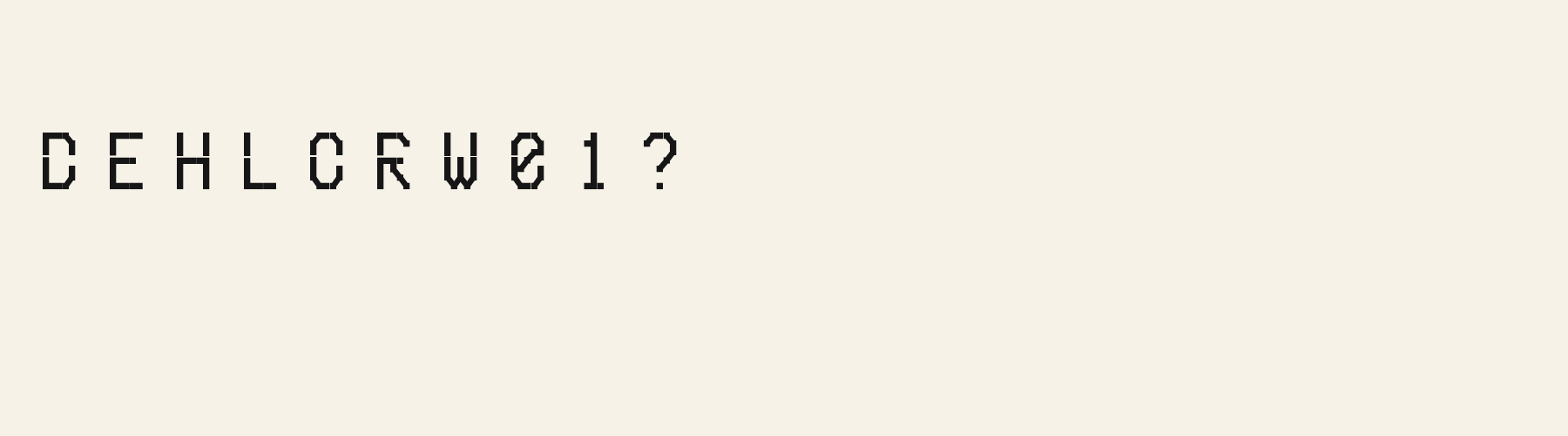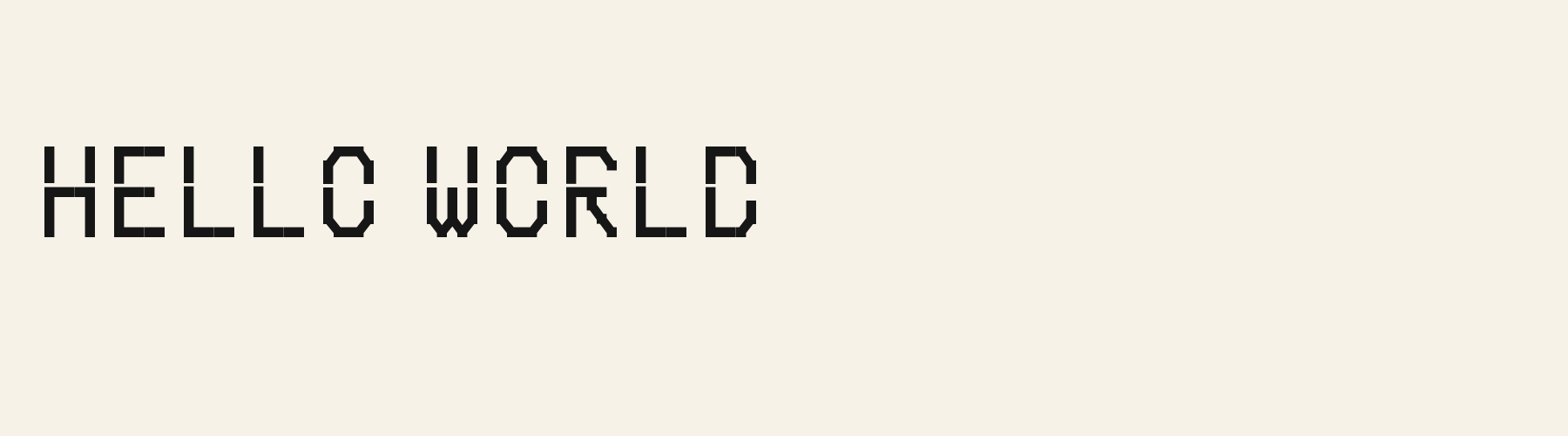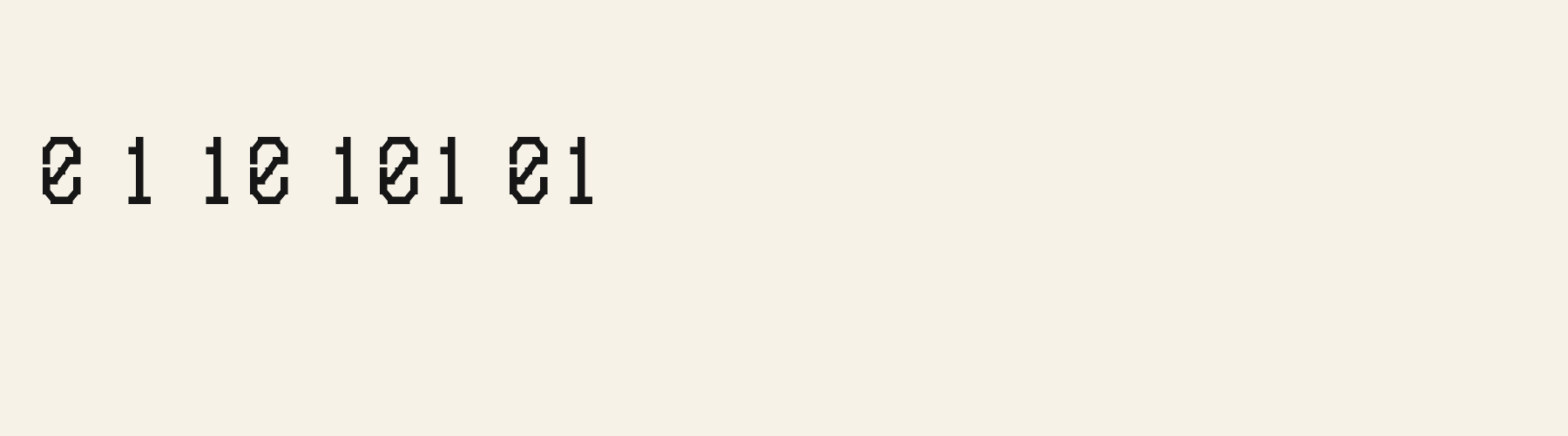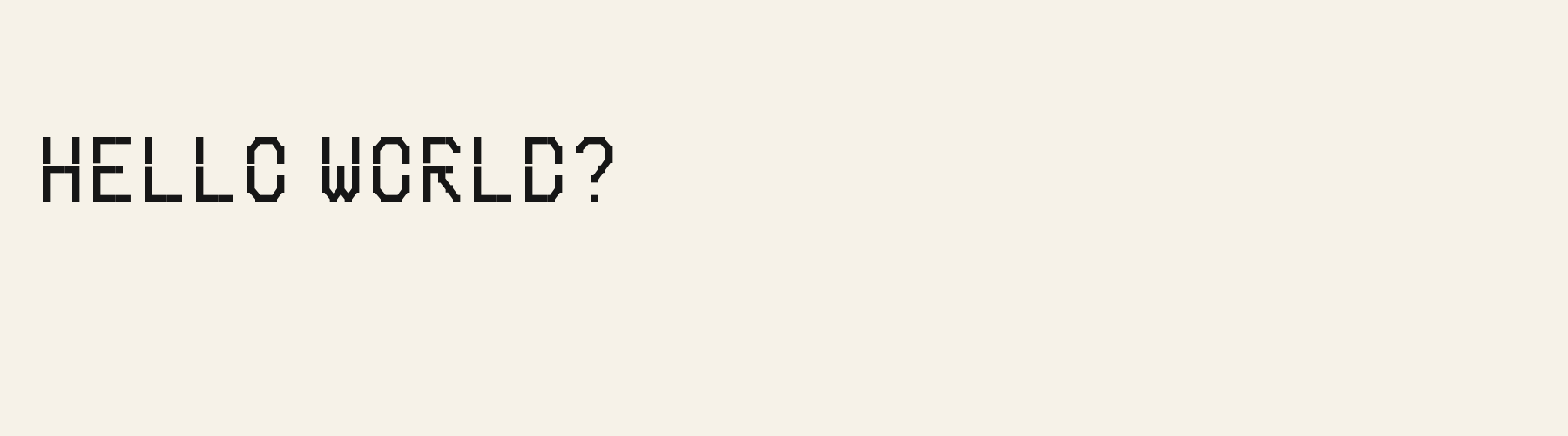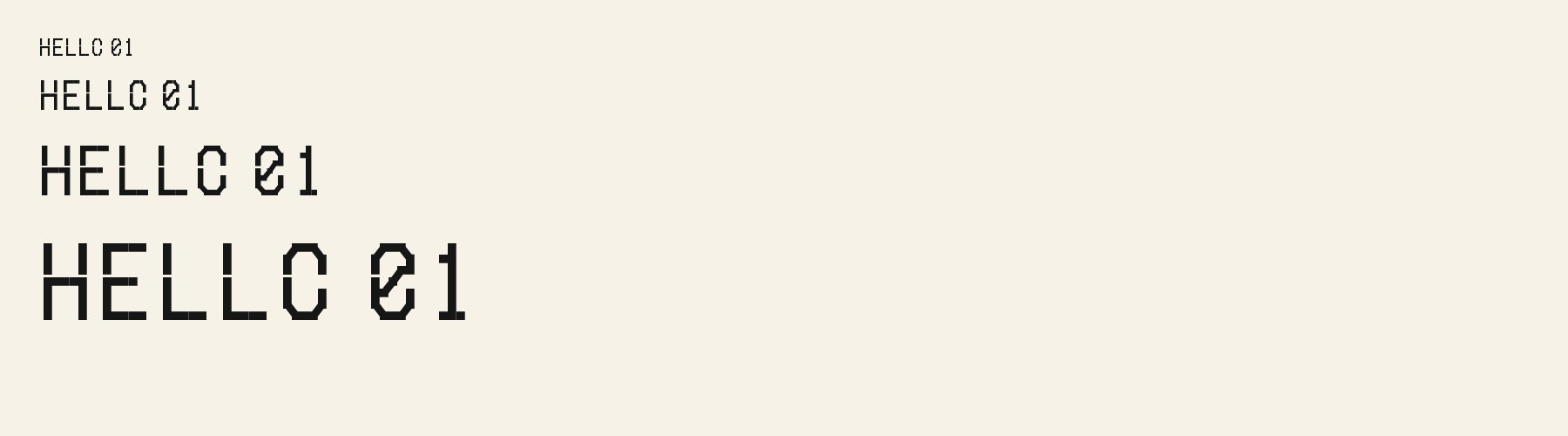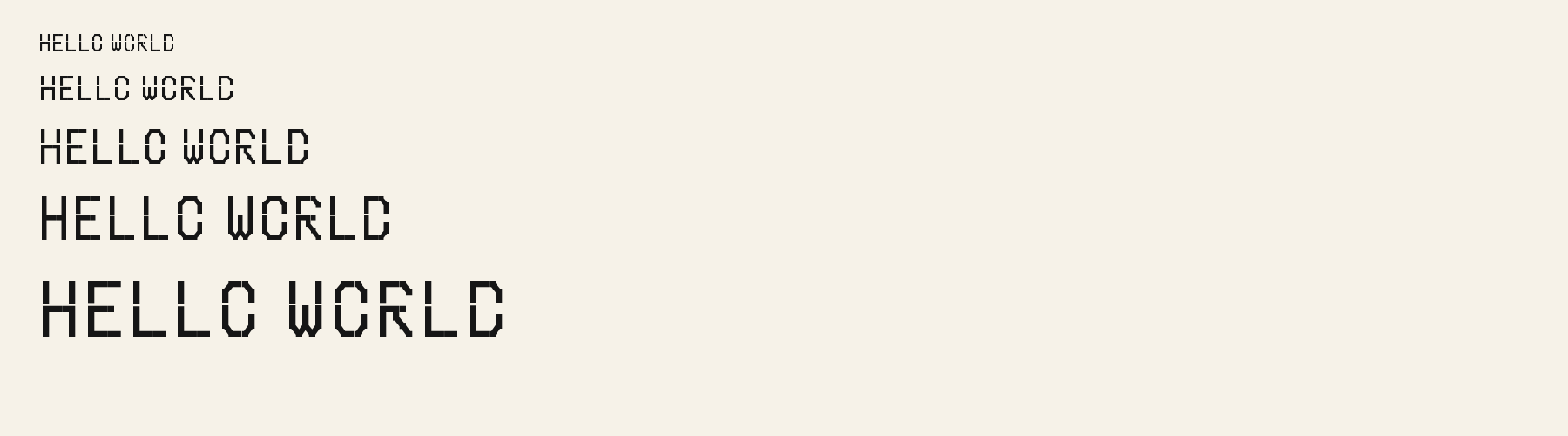
Stencil Railway Bold Clipped Corner Split Stem Font
Stencil Railway Bold pairs tall, narrow capitals with square terminals and clipped corners.
Clipped Corner Split Stem Letterforms
Stencil Railway Bold pairs tall, narrow capitals with square terminals and clipped corners. The O has straight sides, angled shoulders and a matching angular counter, with a fine break across its top. On H, a slit cuts the left stem just above the crossbar, leaving the right stem continuous. The R combines a clipped bowl with a diagonal leg that descends in small steps. Strokes stay even through verticals and horizontals, and the open interiors keep the words from feeling dense. The result feels orderly, mechanical and suited to terse instructions.
Inspect the slits in H and R, the top break in O, and the stepped R leg in your actual wording. Compare tighter and wider spacing around repeated verticals. These specimens show Latin capitals; inspect lowercase, accents and any other script separately in the intended application.
Try this face for short headings and identification labels, with a wider humanist sans for supporting text. The companion’s open curves and continuous strokes could contrast with these clipped capitals while giving longer explanations a calmer rhythm.
Compare the original spacing with a slightly wider setting. Watch whether the repeated L shapes still form a coherent word and whether the space before WORLD becomes too dominant beside the narrow letters.
In this uppercase phrase, Stencil Railway Bold has square terminals on H, E and L. Its narrower overall setting and sharp endpoints give the repeated verticals a stricter, more compact rhythm.
Stencil Cut Corner shows softened endpoints on H, E and L, and the same uppercase phrase occupies more horizontal space in the supplied specimens. Its clipped O and split stems retain the angular structure while the terminals soften the effect.
Shop sign. Tall, narrow capitals and blunt terminals give a short directional sign a controlled, mechanical character. PARTS BIN
Product label. Clipped bowls and small stem interruptions give storage labels a practical workshop feel without adding decorative flourishes. NIGHT DEPARTURE
Poster. Angular counters and stepped diagonals give a spare poster headline enough detail to carry a simple composition.
The scenes are illustrations drawn on this page with Stencil Railway Bold itself, not client work.
The x-height is a compact 70.3% of the cap height, below the 74.2% median for stencil fonts, the lowest of all 15 stencil fonts. Ascenders on b, d, h, k and l line up with the capitals (100% of their height), and descenders on g, j, p, q and y drop 29.7% of the cap height below the baseline, the deepest of all 15 stencil fonts. It sets narrow: an average lowercase letter, spacing included, is 77.8% as wide as the capitals are tall (an average capital, 77.8%), 5.4% less than the median for stencil fonts, so more words fit on a line. The o is an upright oval, 0.80 times as wide as it is tall, and every capital has the same width. O stands exactly as tall as H and sits on the baseline, with no overshoot.
The letters stand upright, leaning less than 2.5° either way. Vertical stems measure 11% of the cap height, the lightest of all 15 stencil fonts. Ink covers 26% of each lowercase letter's box (its advance width by the cap height), lighter than 12 of the 14 other stencil fonts. Strokes keep one thickness in every direction: the sides of o and O measure the same as their tops and bottoms.
Its 159 characters include 116 Latin letters, plus 43 figures, punctuation marks and symbols; 64 of the Latin letters are accented or special forms beyond A to Z. The word space measures 37.4% of the cap height, and the blank space either side of a lowercase letter takes up 31.4% of its width. The font carries no kerning, so spacing comes from each letter’s own side bearings. All ten figures share one width, so columns of numbers line up.
Measured from the version 0.3.1 font file. Comparisons are with the 376 published library fonts measured on November 8, 2026, 15 of them stencil fonts.
- Buttress Bowl Sans (sans serif), Signage Shopfront Extrude 3D (sans serif) and Vogue Italic (serif) are drawn on a different letter structure, so Stencil Railway Bold can carry the headings while one of them sets the text. Each has its own page with a type tester for trying the pair.
- In the same stencil style: Lite Stencil (military stencil effect, taller x-height); Garrison Stencil (heavier strokes, 14% wider); Stencil Cut Corner.